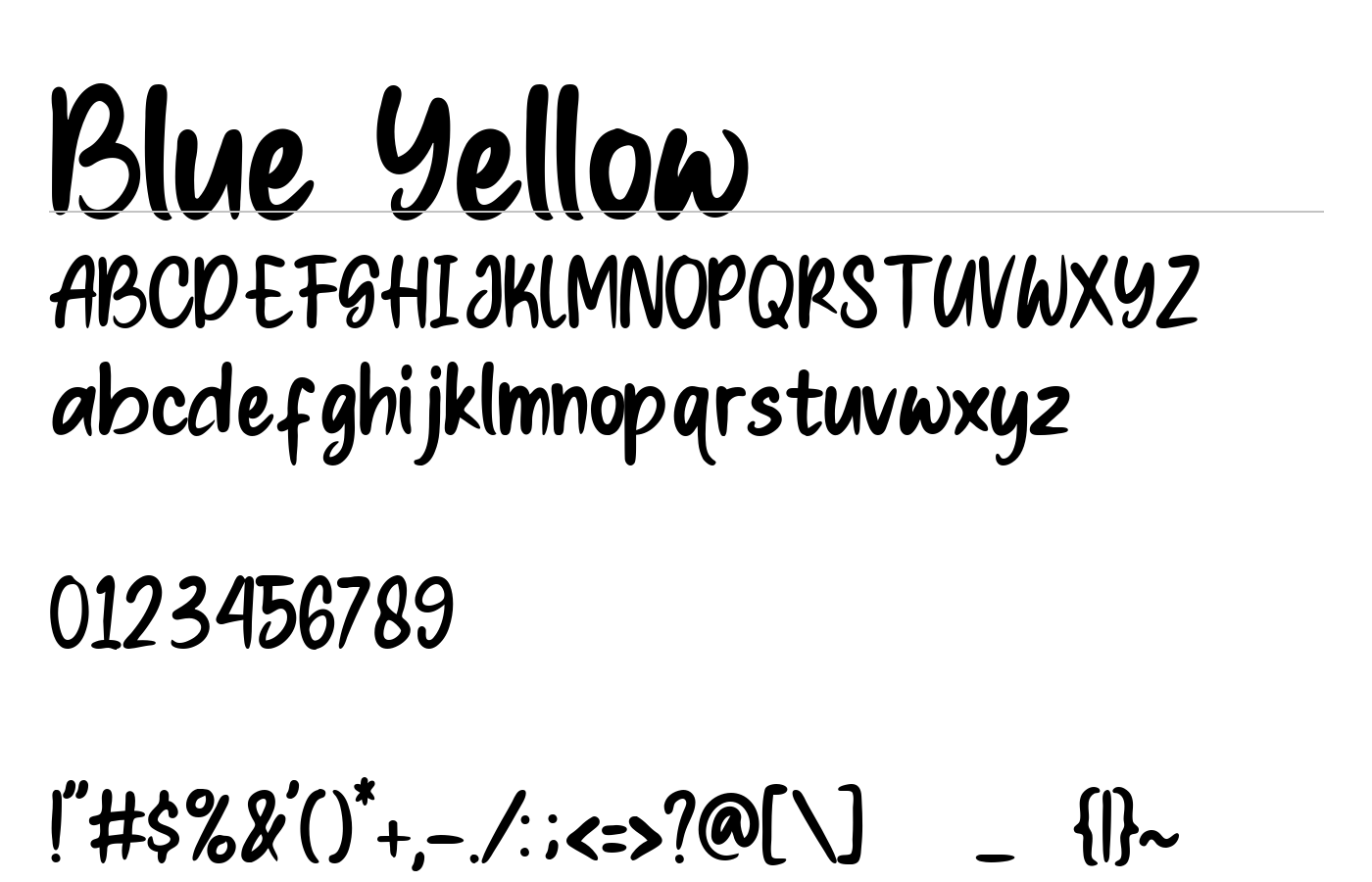
Blue Yellow Font is a playful and casual handwritten script with a warm, friendly feel. Its smooth, rounded strokes and slightly irregular letter shapes give it a natural, approachable look that works well for informal branding, creative projects, and cheerful headlines. This font is ideal for adding a personal touch to invitations, logos, and fun editorial designs.
Blue Yellow Font
About Blue Yellow Font
| Font family | Blue Yellow Font |
| Designer | Hamber Perdiansyah |